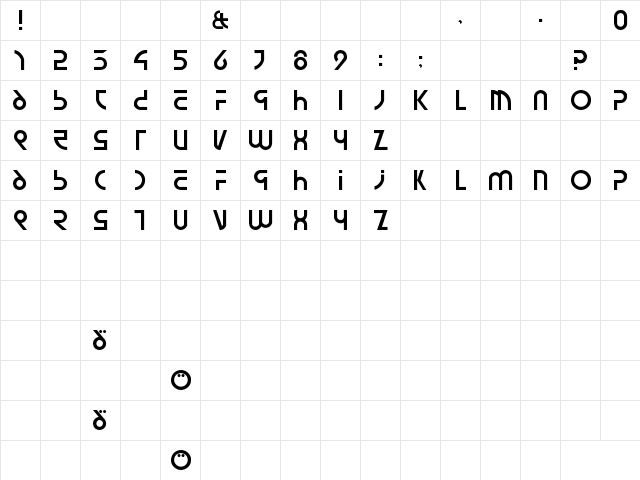
newsiren Regular
Design Context for newsiren Typeface
newsiren takes a measured approach to typography — its balanced proportions and neutral character make it a reliable workhorse for both digital and print work.